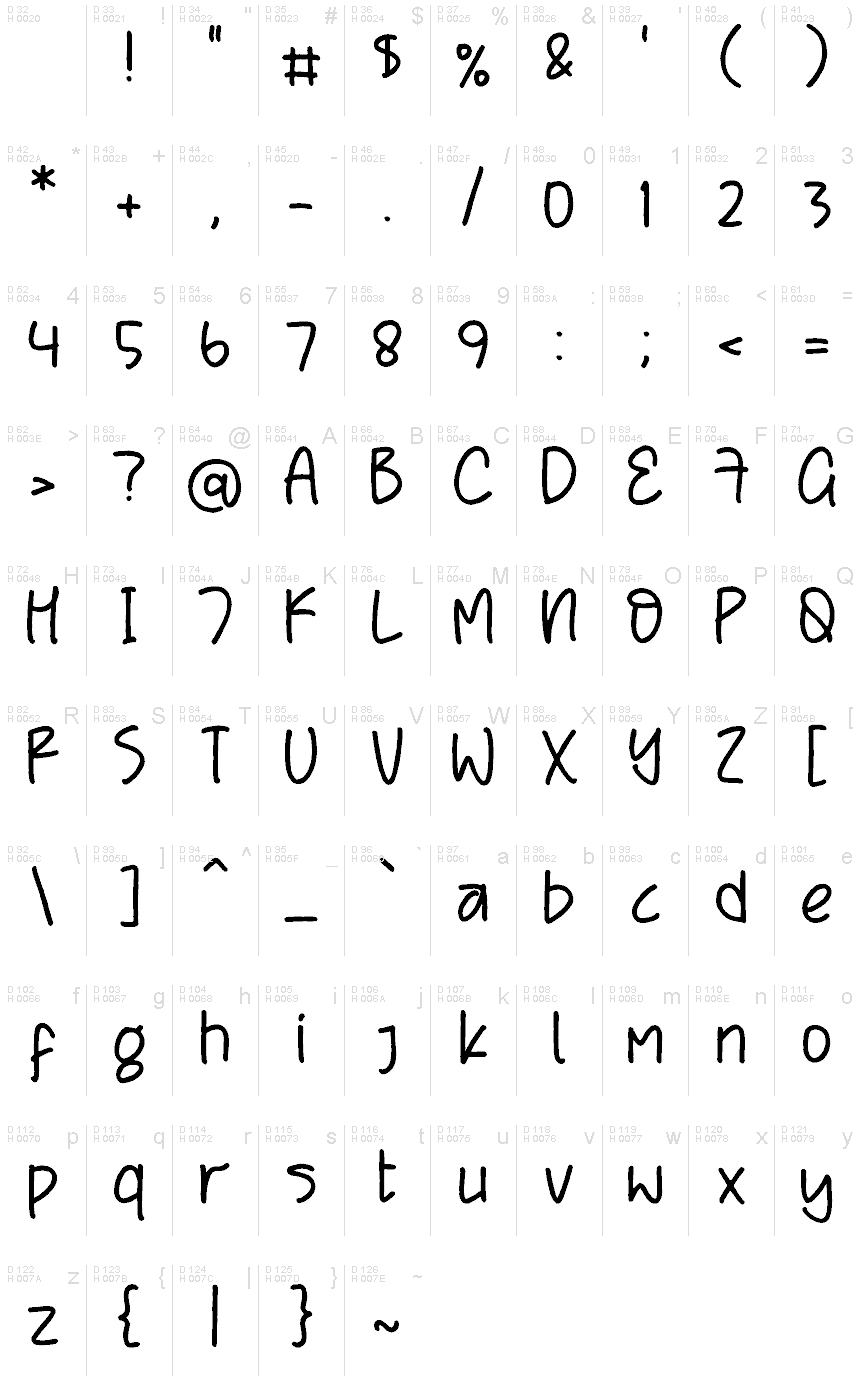
Rageon
Rageon font by Perspectype Studio and Letterena.com has free personal use. The handwritten font puts a casual, approachable touch with each stroke of its quaint letters. Whether you use it in titles or as paragraph text, your writing will appear bolder, more personal and less corporate-y wh never that’s not the goal. This is the font to use when you’re aiming for whimsical elegance instead.
Lightweight logos artists can add Rageon to their library then get creative while making the next big business logo. Use in post or story editors and similar mobile design tools is another great take on it whenever you cannot go pro but still enjoy decorating your content.
In-store emergency posters also deserve a special mention here. They are an unusual but logical way to make direct script twist possible in those important text works everyone’s tired of reading which will sum up our examples for this otherwise brilliant all-rounder tool when used elsewhere!